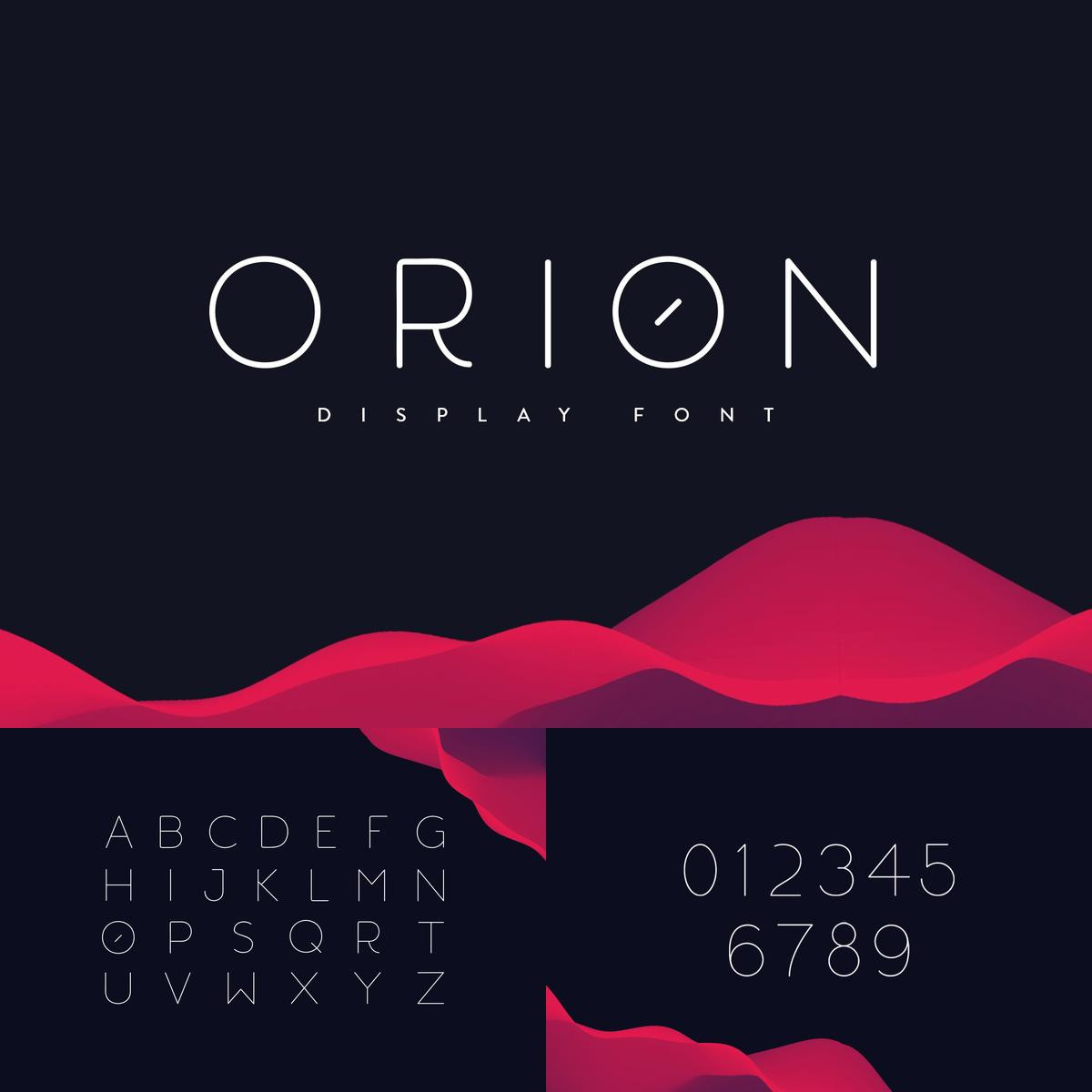
Orion is a minimalist geometric typeface inspired by Gotham. It has distinctive letterforms, with a rounded, geometric outline. Ideal for headlines, invitations, identity, short sentences, logos and posters. It is a single-weight typeface that includes: